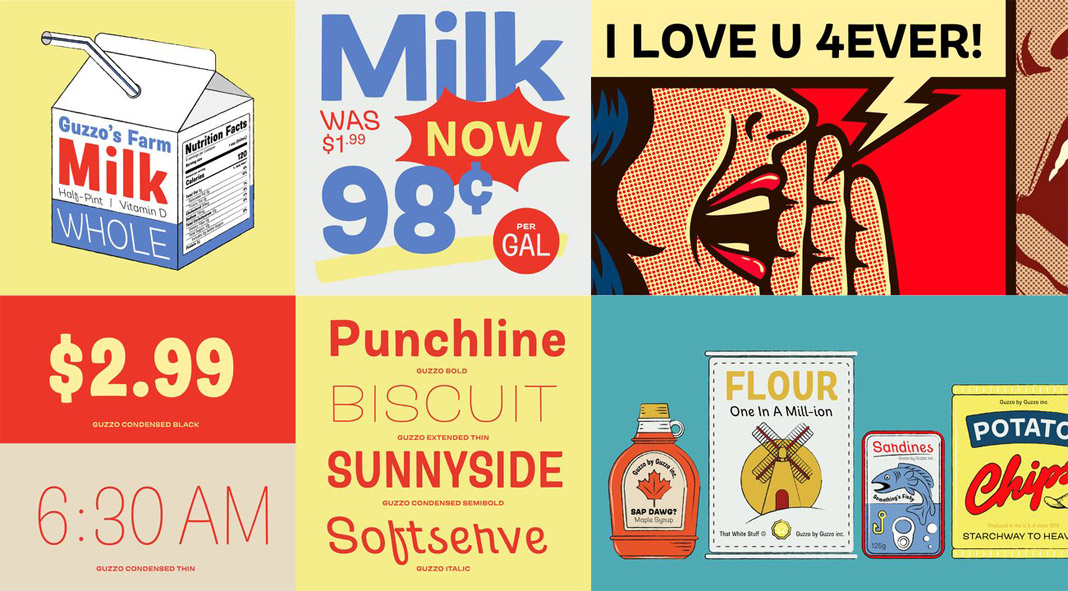
Take a look at Guzzo, a playful caricature of a midcentury grotesque typeface.
Created by Jim Ford as a new addition to the Monotype Library, the Guzzo font family can be considered somewhat eccentric and quirky. Its wide range of weights makes it suitable for plenty of typographic uses including headlines and texts. Guzzo expresses its charm through playful shapes and its unusual laid-back italics. The family comes with different stylistic sets and several sets of alternate glyphs. Guzzo matches exceptionally well with scripts and slab serif typefaces making it a great choice for toys, packaging, menus, broadcasting, cartoons, merchandising, and more.